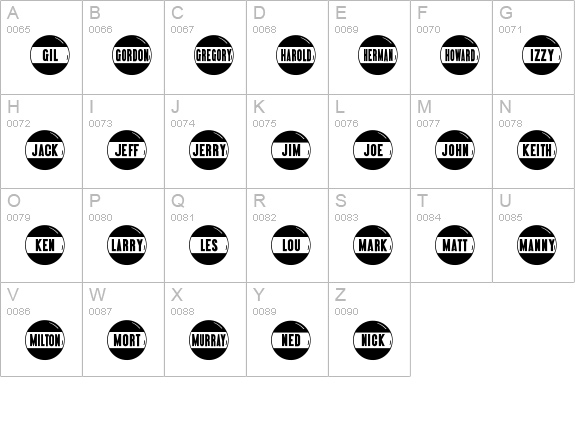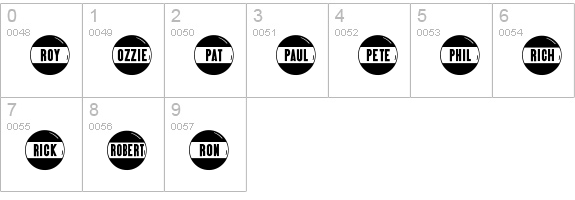
Big Name Buttons JL font is a charming and playful display typeface that exudes a sense of fun and creativity. Featuring bold, rounded letters with a slightly retro feel, this font is perfect for adding a touch of whimsy to your designs. Whether you're working on a poster, logo, or website, Big Name Buttons JL font will surely make a statement. The best part is that Big Name Buttons JL font is completely free to download at FontsMarket.com. You can easily access this delightful font and incorporate it into your projects without any cost. Don't miss out on the opportunity to enhance your designs with the unique style of Big Name Buttons JL font. Download it today and let your creativity shine!